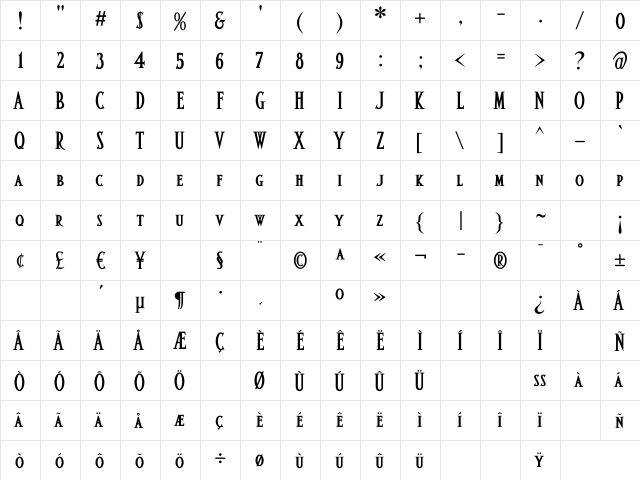
AltarPetite Caps Bold Regular
Design Context for AltarPetite Caps Bold Typeface
AltarPetite Caps Bold offers clean, dependable letterforms without strong stylistic allegiance, making it a practical choice for designers who need flexibility. The heavy weight commands attention and anchors typographic hierarchies.